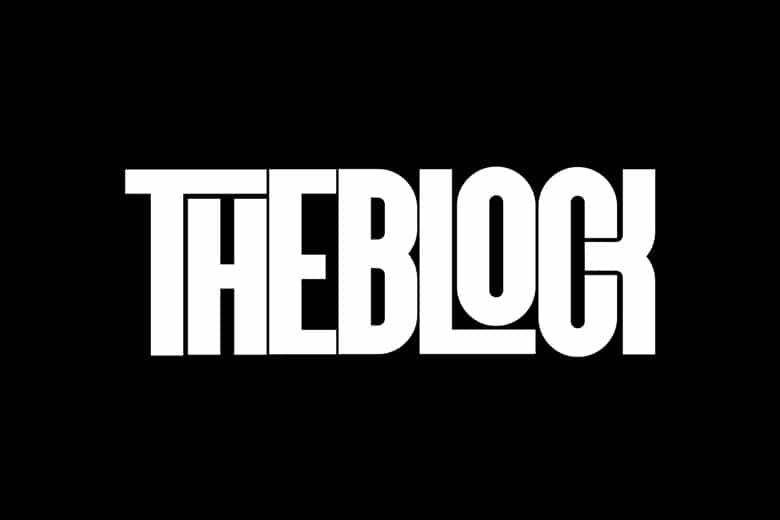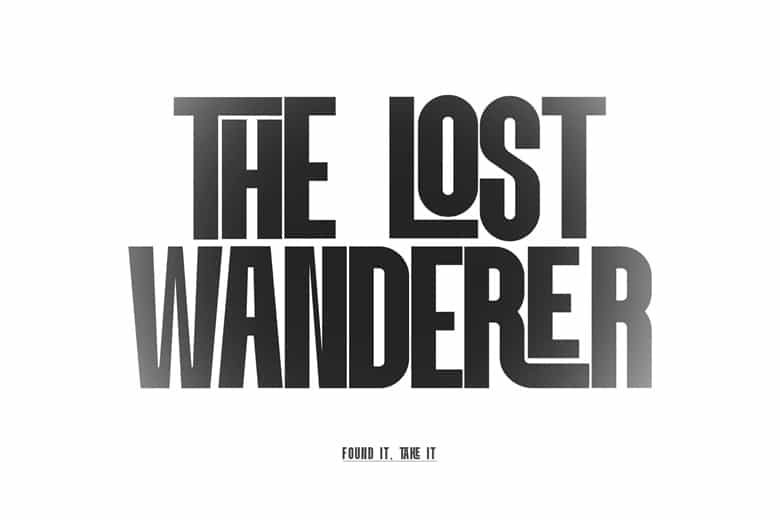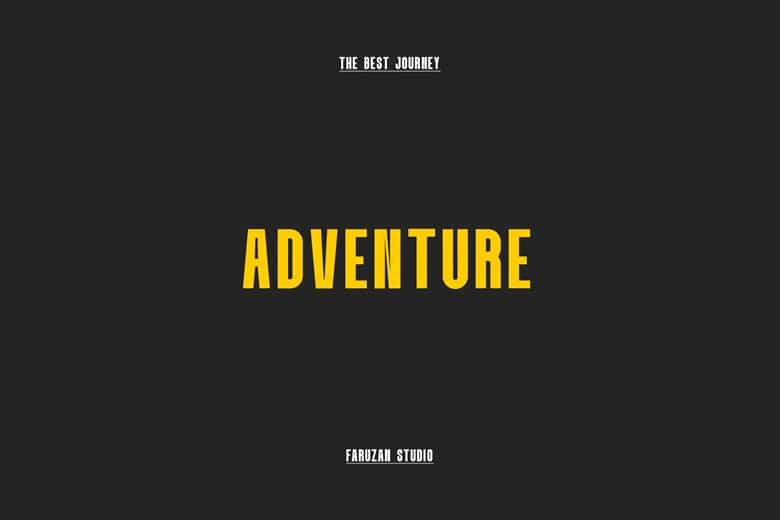
TheBlockis an edgy font, which is fully characterized as a sans-serif font used to generate a modern and solid look. This font has a geometric look and is therefore suitable for use in design work that needs solid visuals such as branding purposes, poster designs, headers and magazine designs.